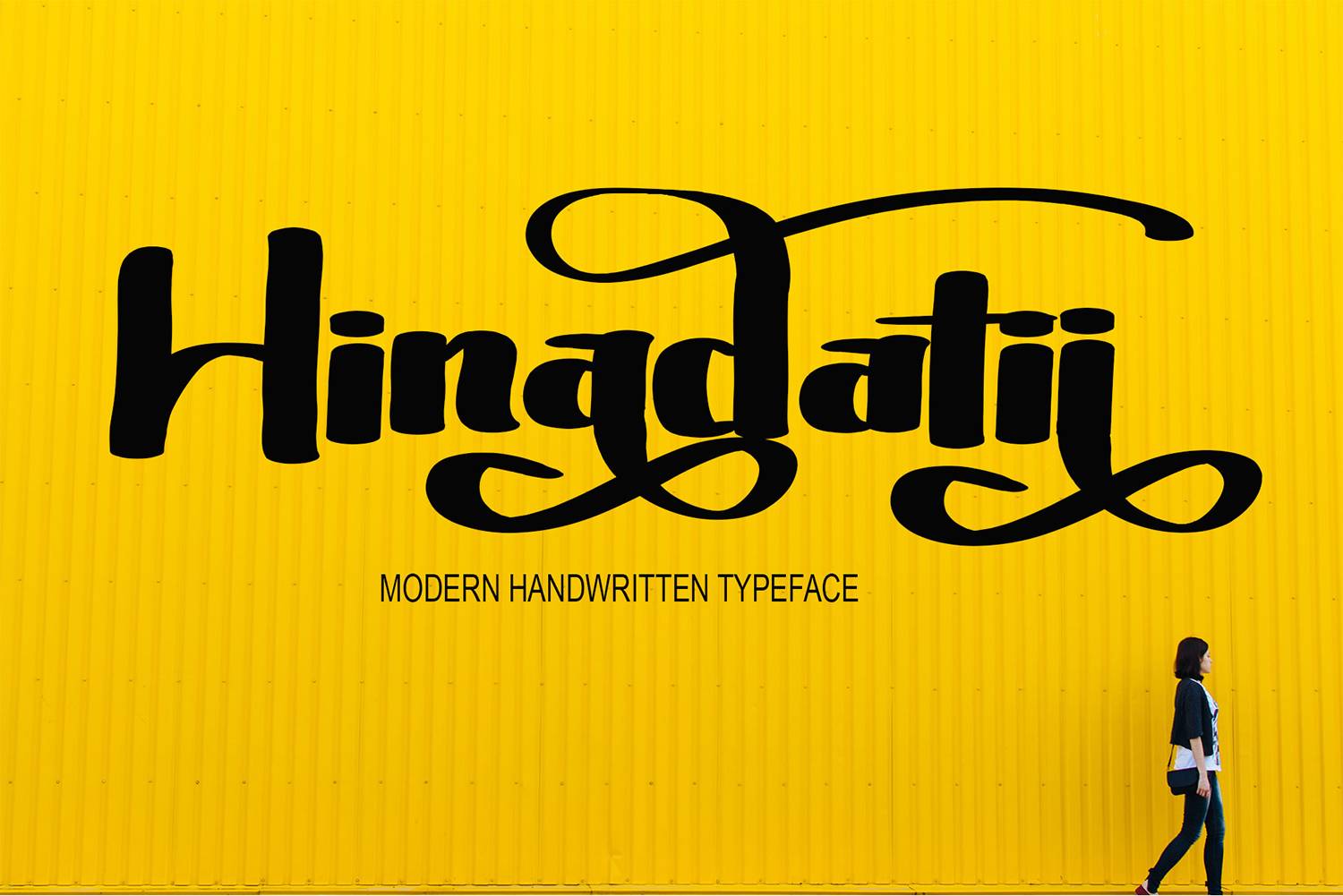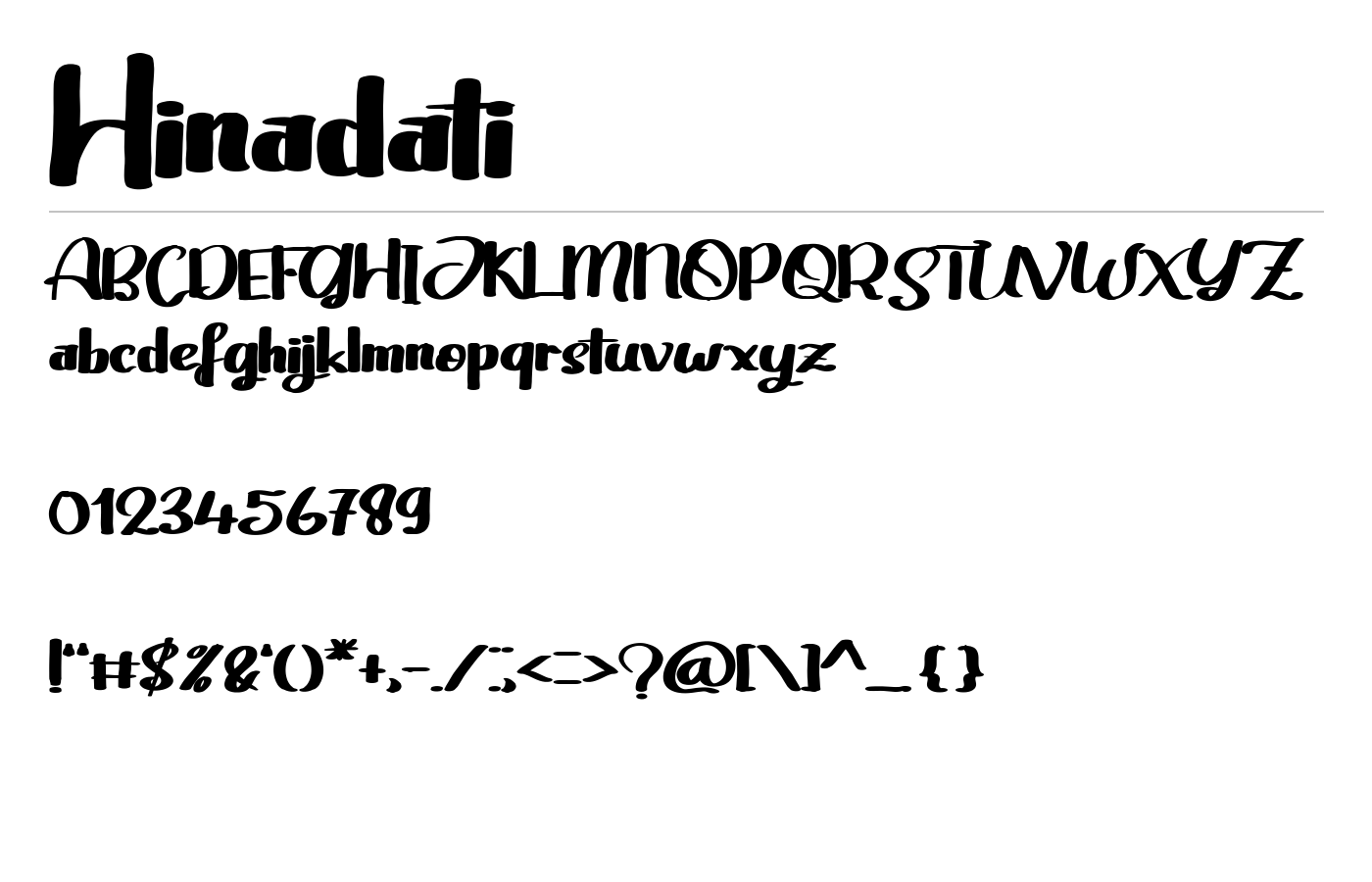
Hinadati is a bold, playful script font with a hand-drawn feel, combining thick strokes with smooth, rounded edges. Its unique letterforms and lively curves make it ideal for casual, creative designs seeking a friendly and approachable tone. This font works well for logos, posters, and branding where a fun and energetic style is desired.
Hinadati Font
About Hinadati Font